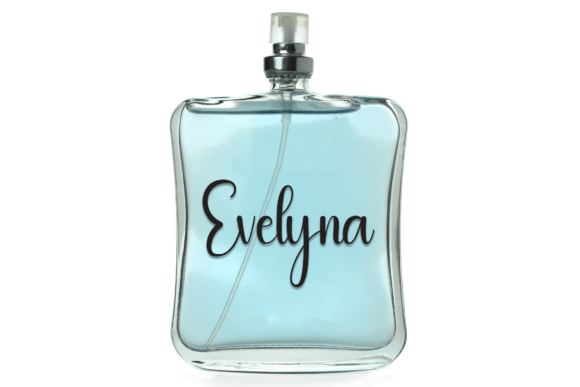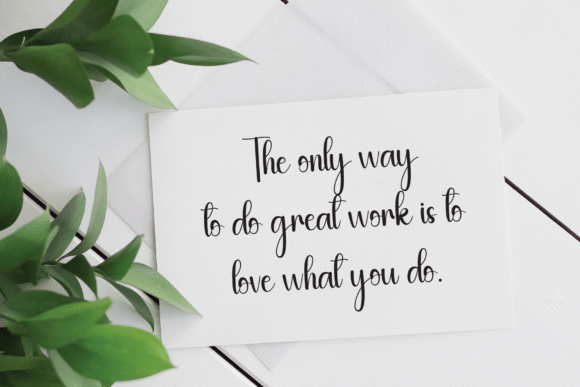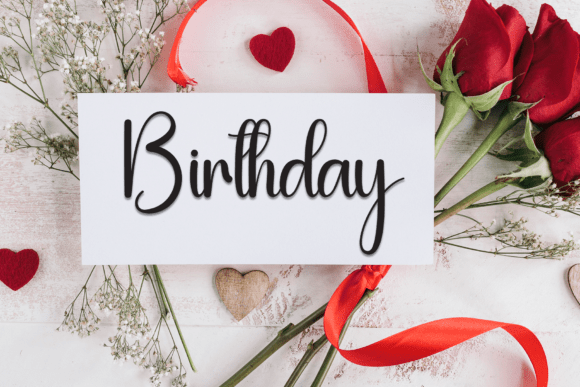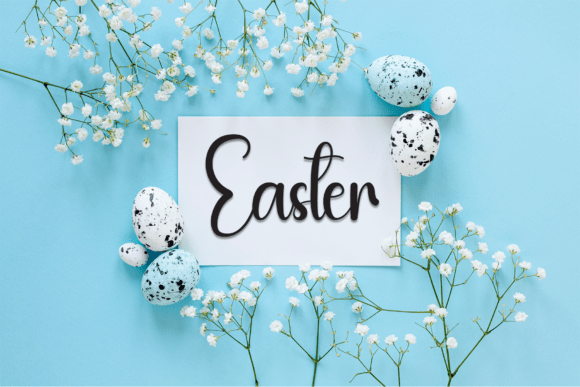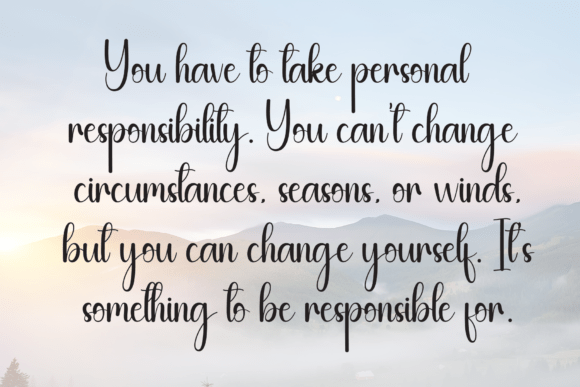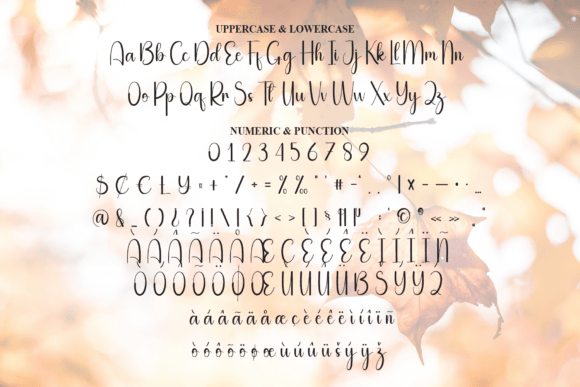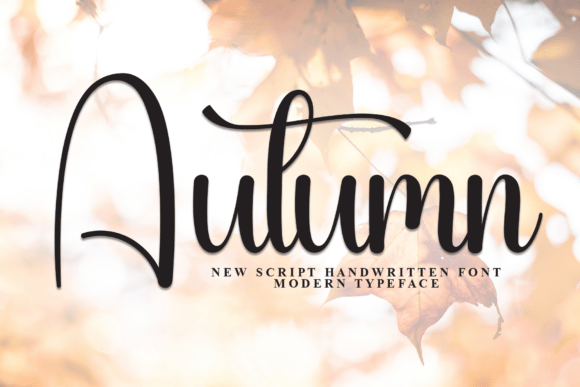
The Magic of Autumn Font: Elevating Your Designs with Elegance and Charm
I’ll never forget the time I was working on a branding project for a luxury wellness client. I had nailed the color palette and overall aesthetic, but something was missing – the perfect font. I scrolled through countless options, but none seemed to capture the essence of sophistication and warmth I was looking for. That’s when I stumbled upon Autumn Font, a stylish handwritten script font that instantly elevated my design. In this article, I’ll share my experience with Autumn Font, its features, and how to make the most of it in your creative projects.
An Honest Review of Autumn Font
• 💫 Elegant and modern flair: Autumn Font seamlessly blends traditional elegance with a contemporary twist, making it perfect for a wide range of applications.
• ✅ Flowing strokes and organic curves: The font’s smooth, connected letters create a sense of fluidity and sophistication.
• 🌈 Versatility: From branding and invitations to social media graphics, Autumn Font adapts effortlessly to various design needs.
• 👍 Refined and personal touch: This typeface adds a touch of warmth and personality to any project, making it feel more approachable and engaging.
While Autumn Font is an exceptional typeface, there are a few minor considerations to keep in mind:
• 🤔 Limited use in very formal or traditional contexts: Due to its modern and elegant nature, Autumn Font might not be the best fit for very formal or traditional designs.
• ⚠️ Occasional kerning adjustments: As with any font, you might need to make some manual kerning adjustments to ensure optimal spacing and readability.
3. Experiment with OpenType features, such as glyphs and stylistic alternates, to add variety to your text.
The Backstory of Autumn Font
Autumn Font was designed by a talented typographer who sought to capture the essence of the autumn season – warmth, coziness, and transformation. Inspired by the flowing curves of fallen leaves and the vibrant colors of the season, this font combines classic elegance with a modern twist. The result is a typeface that exudes sophistication, warmth, and personality.
Q: What makes Autumn Font unique?
A: Autumn Font’s unique blend of elegance and modern flair, combined with its flowing strokes and organic curves, sets it apart from other script fonts.
Q: Does Autumn Font support OpenType features?
A: Yes, Autumn Font supports OpenType features, including glyphs and stylistic alternates, allowing you to add variety and creativity to your designs.
Q: Can I use Autumn Font for both digital and print designs?
A: Absolutely! Autumn Font is versatile and can be used for a wide range of applications, from digital graphics to print materials.